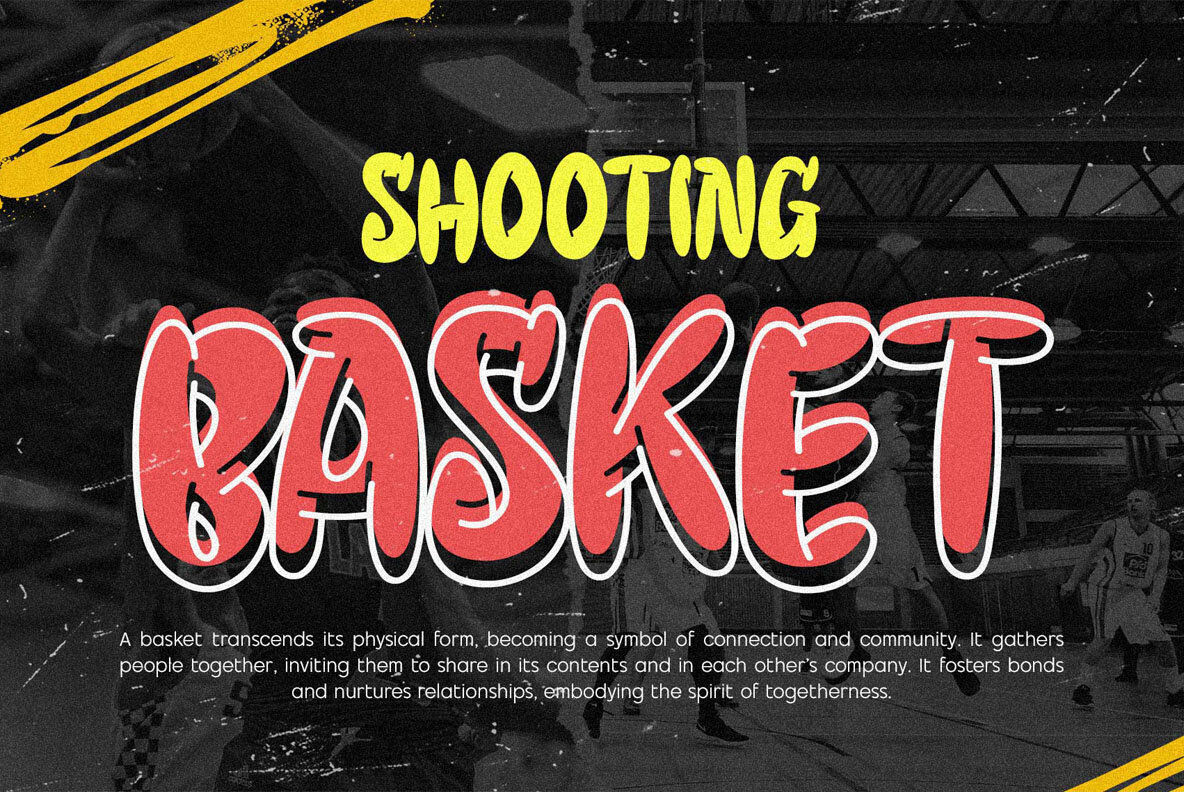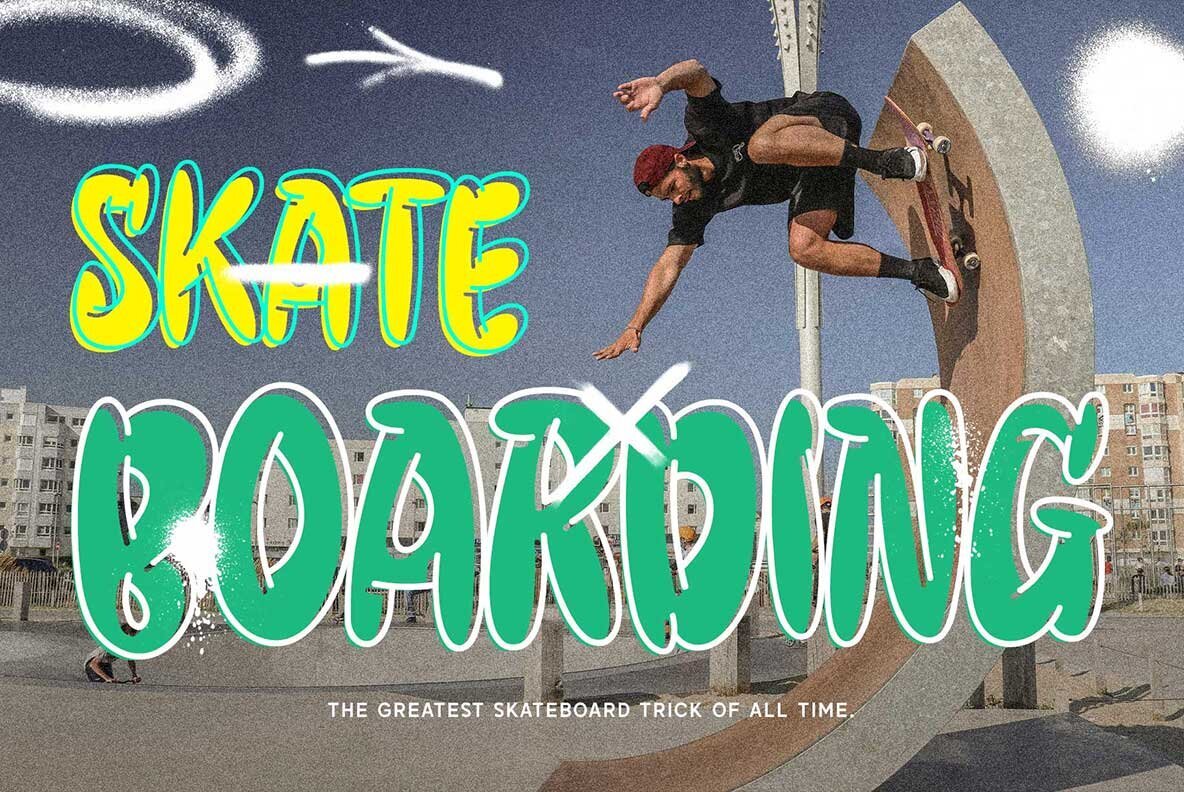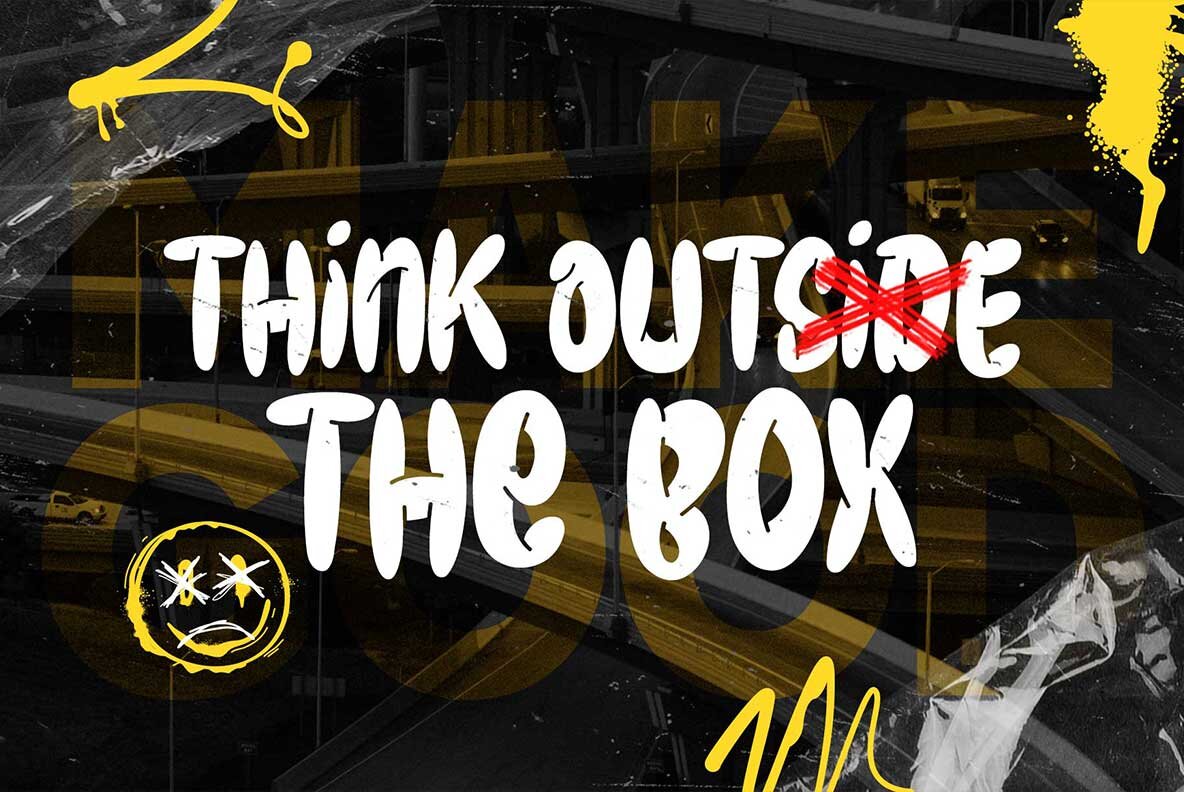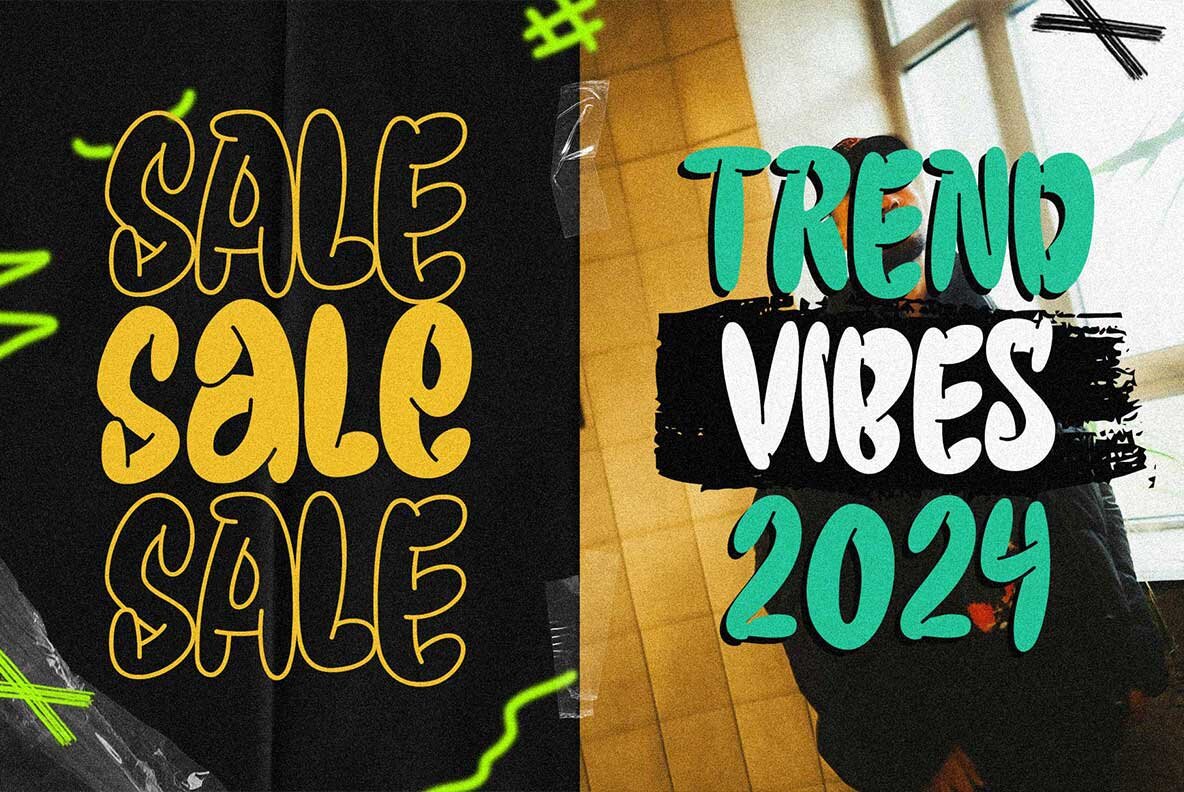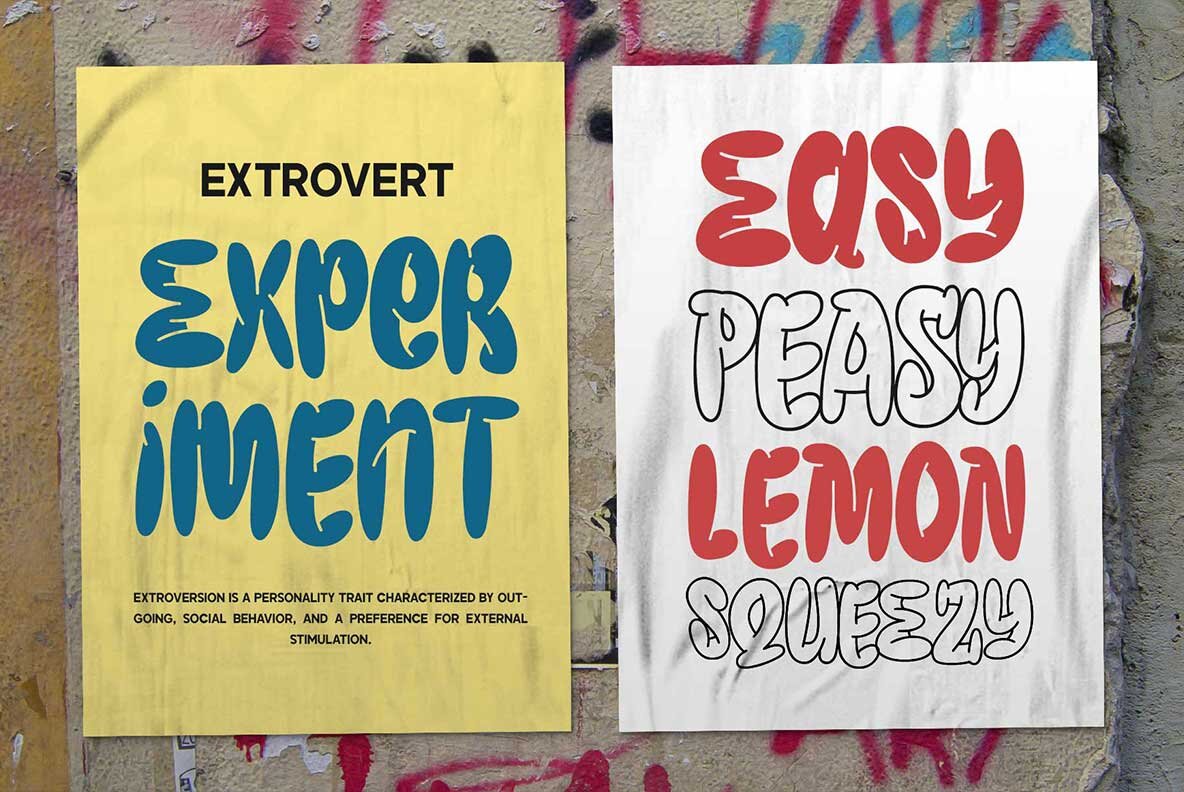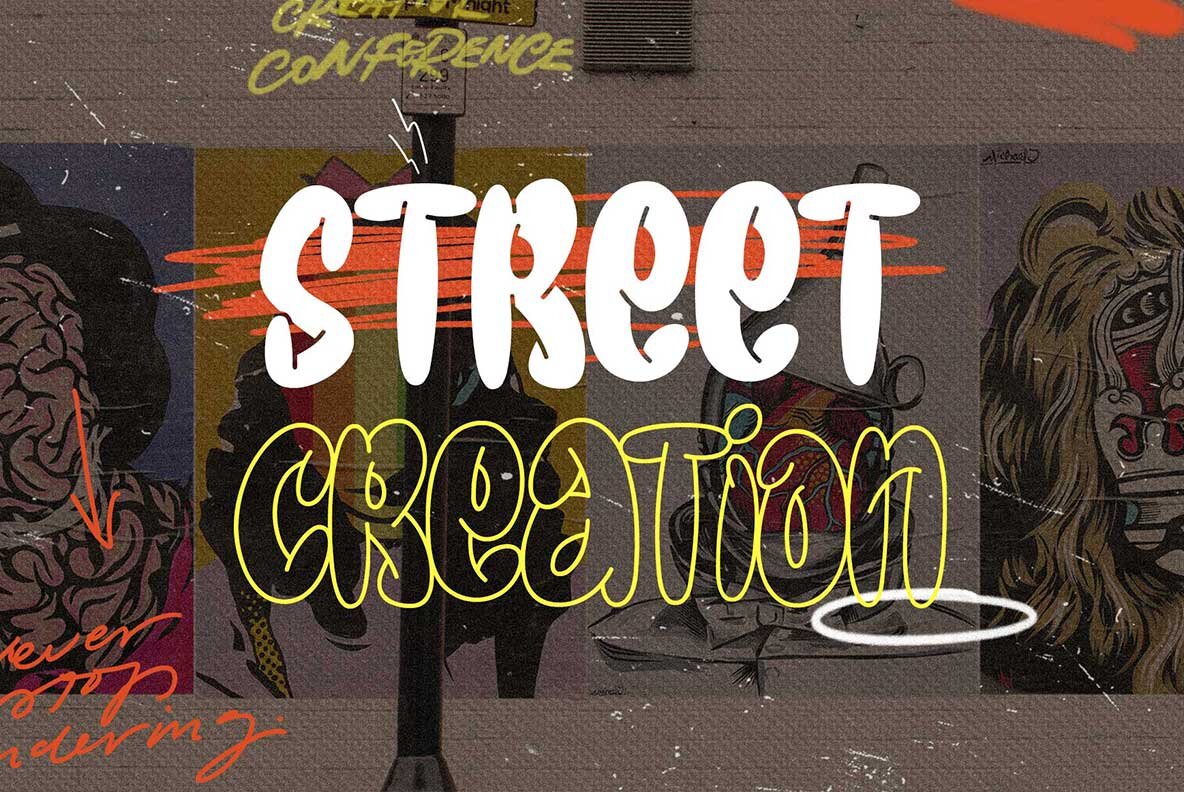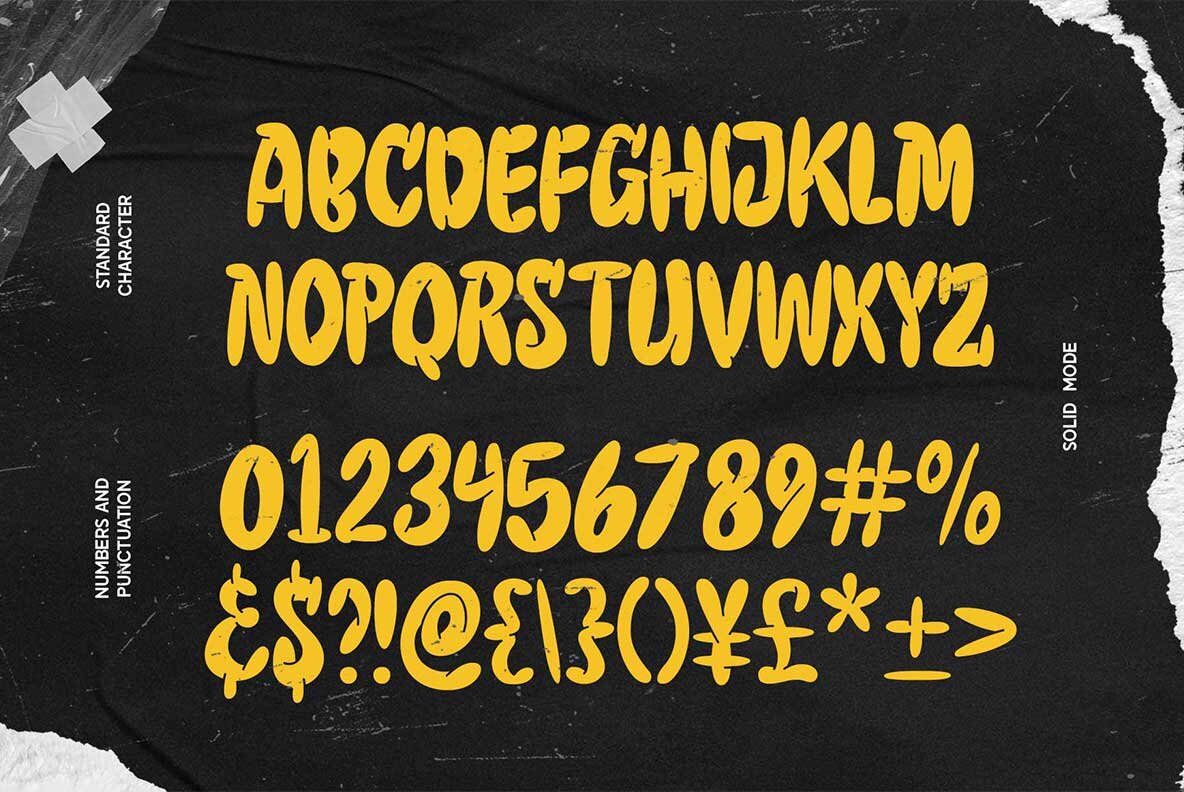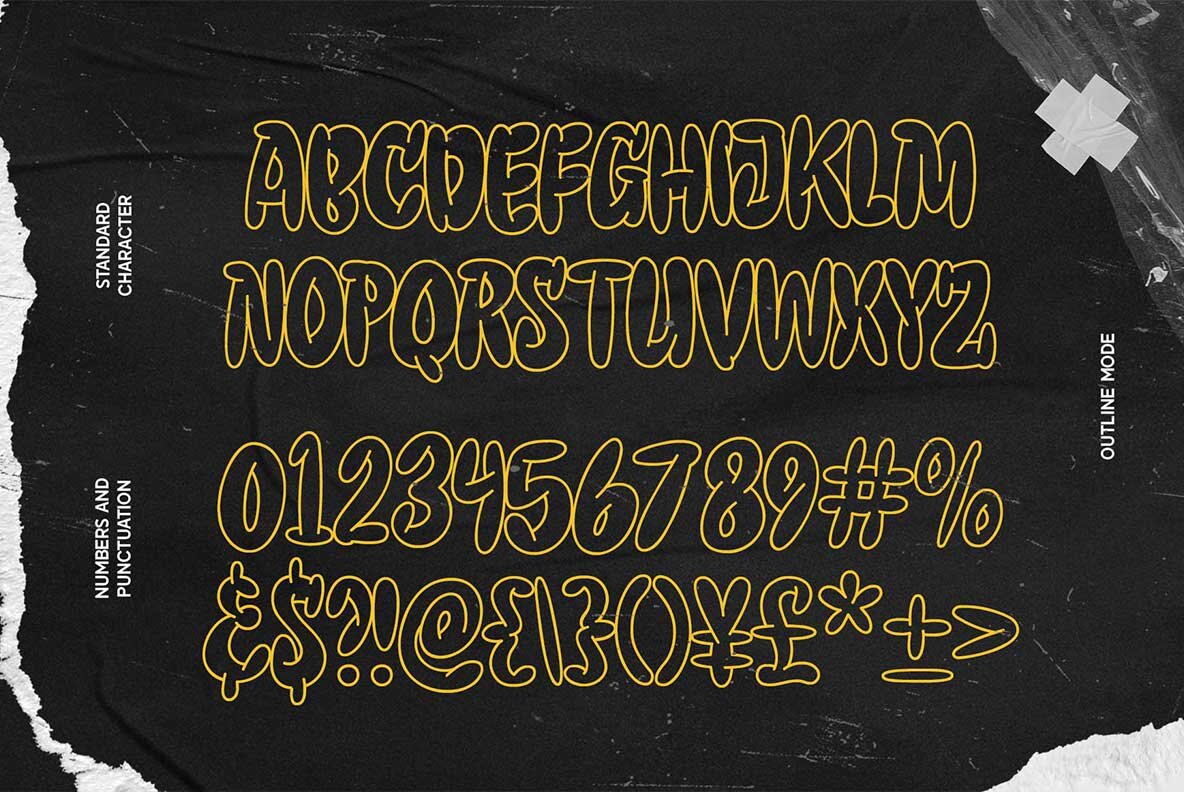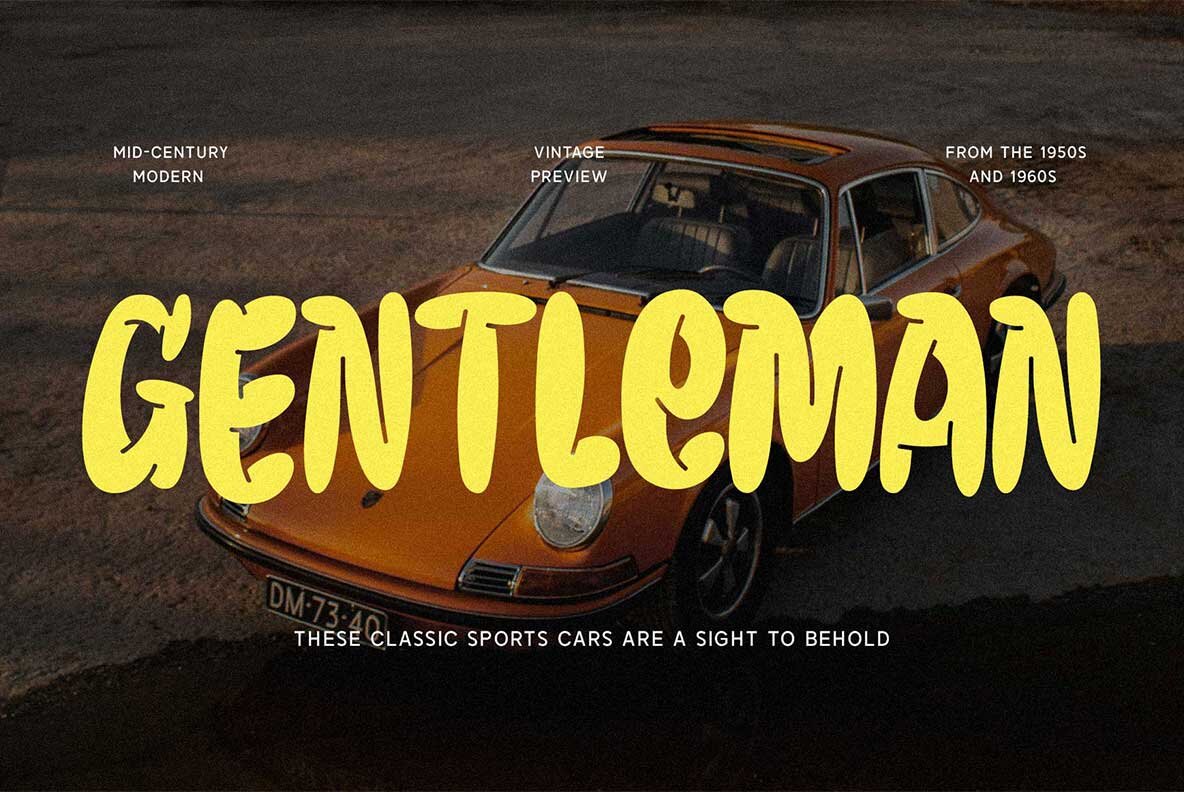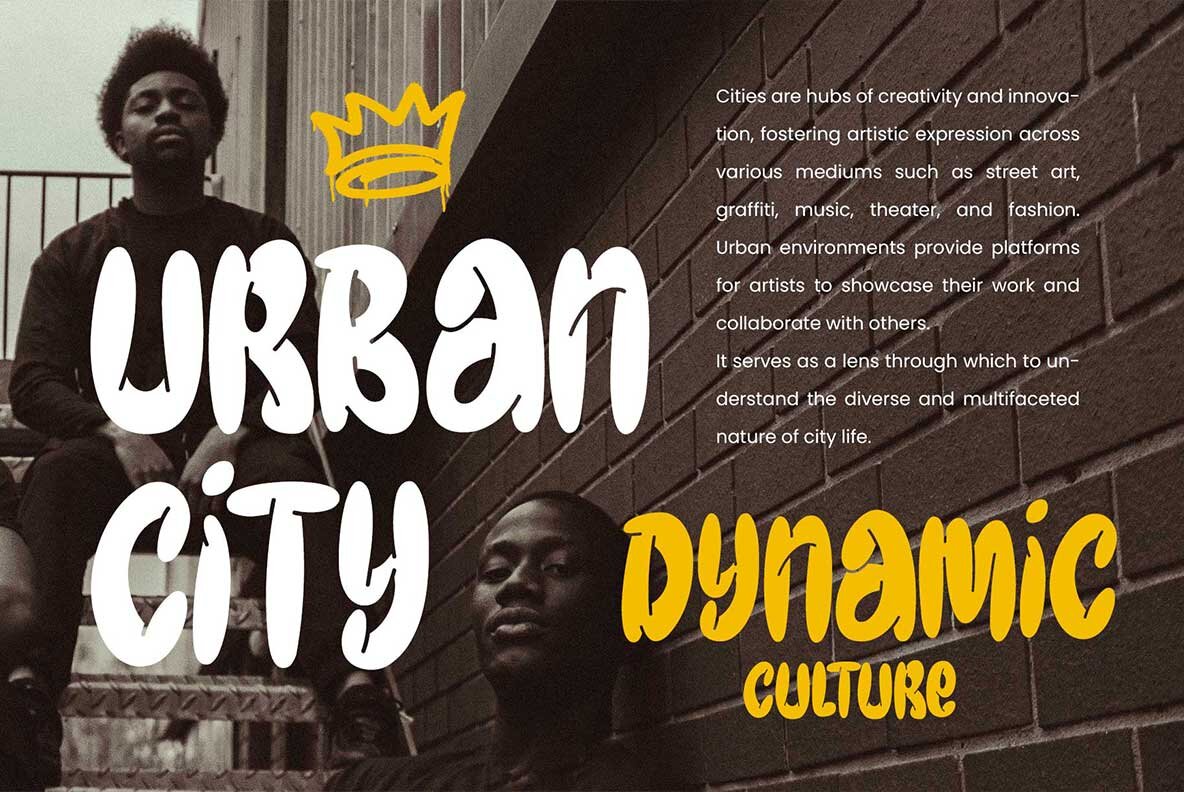
Besmond Chicken Font
Enhance your design with a joyful touch using "Besmond Chicken," a playful bubble font inspired by the lively combination of graffiti and bubble style. The font exudes excitement, positivity, and a chill vibe.Besmond Chicken: Playful Bubble Font with Graffiti Influence
Unique Design Features